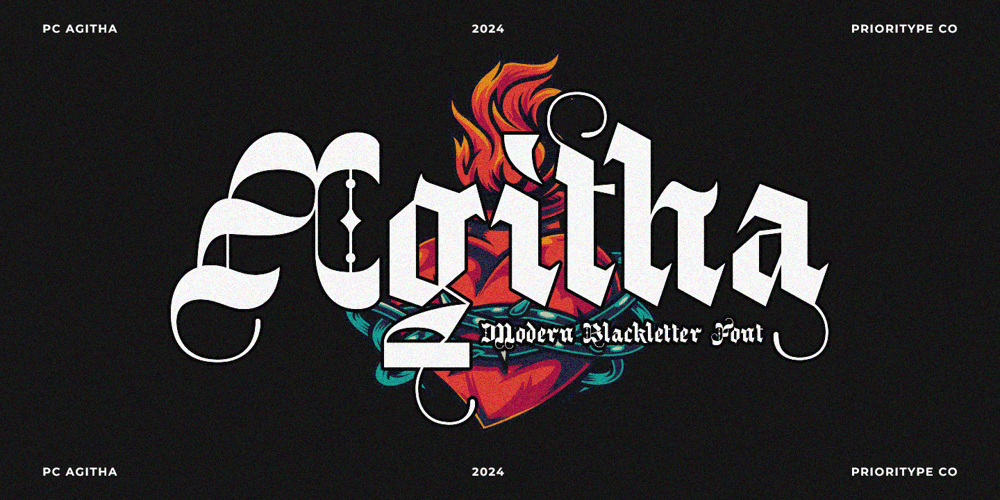
PC Agitha Font Family was designed by Prio Nurokhim Aji and published by Prioritype. PC Agitha contains 1 styles and family package options. PC Agitha – Modern Blackletter FontUnveiling our Modern Blackletter Font. Where tradition meets modernity in a sleek fusion. Elevate your designs with this versatile and sophisticated font, perfect for logos, posters, merchandise, and more. Embrace a timeless yet contemporary aesthetic that makes a bold statement in the digital age. Redefine tradition with our font designed for the modern era.Features: Uppercase, Lowercase, Numeral, Punctuation, Multilingual, Alternates & Ligatures.Multilingual contained: Afrikaans, Albanian, Asu, Basque, Bemba, Bena, Breton, Catalan, Chiga, Cornish, Danish, Dutch, English, Estonian, Filipino, Finnish, French, Friulian, Galician, German, Gusii, Indonesian, Irish, Italian, Kabuverdianu, Kalenjin, Kinyarwanda, Luo, Luxembourgish, Luyia, Machame, Makhuwa-Meetto, Makonde, Malagasy, Manx, Morisyen, North Ndebele, Norwegian Bokmål, Norwegian Nynorsk, Nyankole, Oromo, Portuguese, Quechua, Romansh, Rombo, Rundi, Rwa, Samburu, Sango, Sangu, Scottish Gaelic, Sena, Shambala, Shona, Soga, Somali, Spanish, Swahili, Swedish, Swiss German, Taita, Teso, Uzbek (Latin), Volapük, Vunjo, Zulu.Thanks!